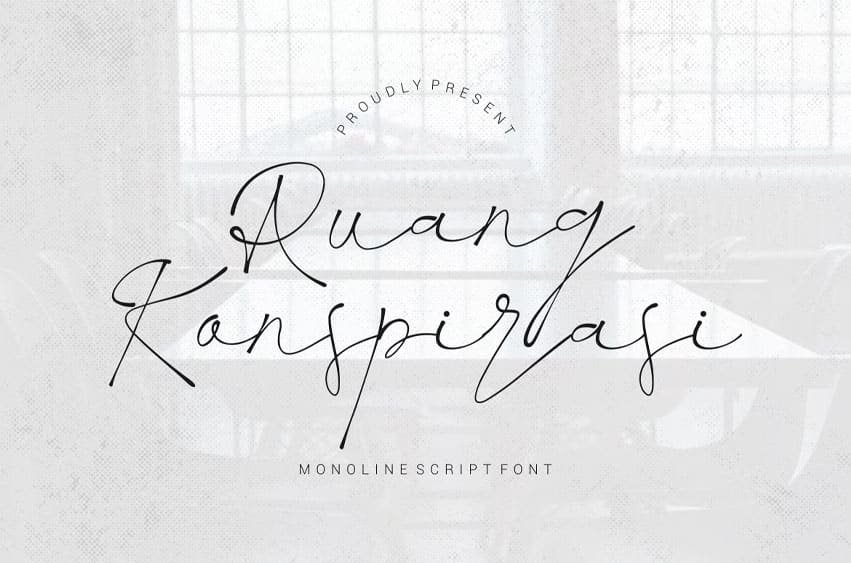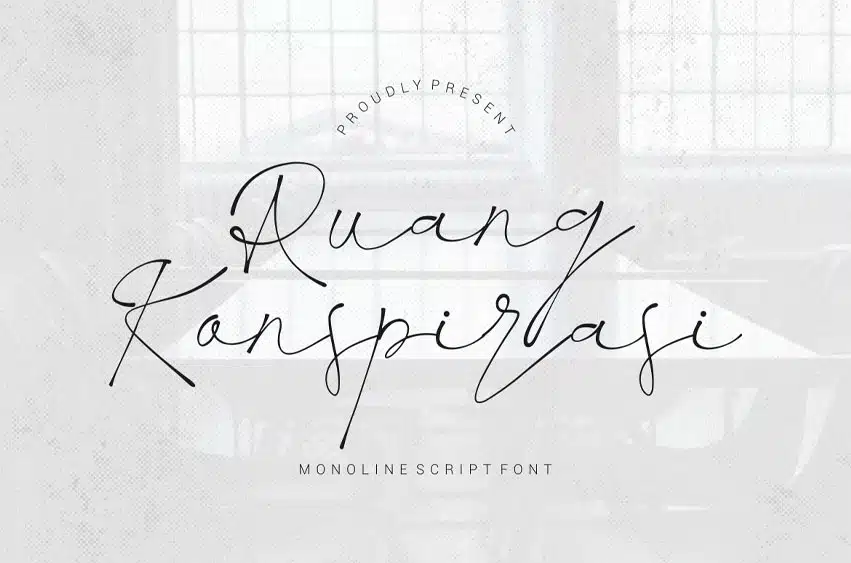
Ruang Konspirasi Font Monoline Script Font is a modern serif typeface crafted for timeless elegance and visual storytelling. Its clean contrast and subtle ligatures make it ideal for branding, fashion editorials, and luxury packaging.
Designed with cinematic grace, this font evokes sophistication and aesthetic harmony in every composition.
Perfect For: Luxury branding, editorial headlines, packaging, and logo design.